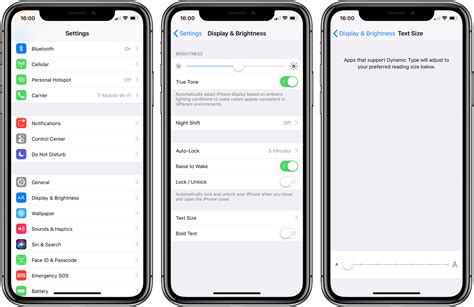
Make Your IPhone Text Stand Out With Bold Fonts
Make Your iPhone Text Stand Out with Bold Fonts
Hey everyone! Ever looked at your iPhone and thought, “Man, this text could be a little bolder?” You’re not alone, guys! Sometimes, the standard fonts just don’t have that pop we’re looking for, especially when you want to emphasize something or just give your device a unique look. Well, guess what? You can change the font on your iPhone, and it’s not as complicated as you might think. Today, we’re diving deep into the world of iOS bold font TTF and how you can harness the power of typography to make your iPhone text truly shine. We’ll explore why you might want to do this, the different ways to achieve it, and what TTF files actually are. So, grab your favorite beverage, get comfy, and let’s get this font party started!
Why Go Bold with Your iPhone Fonts?
So, why bother with changing your iPhone’s font, especially to a bold one? Good question! For starters, bold fonts on iOS can seriously boost readability. Think about it: if you’re squinting at smaller text or reading in bright sunlight, a bolder typeface can make a world of difference. It’s not just about aesthetics; it’s about improving your visual experience . Beyond readability, it’s all about personalization, right? Your iPhone is, like, the most personal device you own. It’s with you all the time. So, why not make it reflect your style? Using a bold font can give your device a more sophisticated, modern, or even a playful vibe, depending on the font you choose. Imagine your contacts list looking sharp and professional, or your notes having a strong, commanding presence. It’s a subtle change that can have a significant impact on how you interact with your device daily. Plus, for content creators or people who share a lot of notes or messages, using a distinct bold font can make your content stand out in a sea of standard text. It’s a way to add a professional touch or a unique flair to your digital communication. Remember those old-school fonts that screamed bold and important ? You can bring some of that vibe to your modern iPhone. It’s like giving your digital world a custom makeover, one character at a time. So, whether it’s for better legibility, a touch of personal flair, or just to make your iPhone feel more you , opting for a bold font iOS TTF is a fantastic idea.
Understanding TTF Files: The Building Blocks of Fonts
Alright, let’s talk about TTF files – that’s short for TrueType Font. You might have seen this file extension before when downloading fonts for your computer, but what exactly are they, and why are they relevant to your iPhone? Think of TTF files as the blueprints for a font. They contain all the vector data that tells your device how to draw each character, number, and symbol. This means that no matter how large or small you make the text, it will remain crisp and clear, without any pixelation or blurriness. Pretty neat, huh? This scalability is a huge advantage over older bitmap fonts, which were essentially just images of characters. TrueType Fonts (TTF) were developed by Apple back in the day and have become a universal standard for digital typography. They are widely compatible across different operating systems, including iOS, macOS, Windows, and Android. This widespread adoption means that when you find a cool font online, chances are it’s available in TTF format, making it easier to use on all your devices. For your iPhone, TTF files are the key to unlocking custom fonts. While iOS has its built-in fonts, TTF files allow you to install and use virtually any font you can get your hands on, provided it’s compatible. The iOS bold font TTF concept essentially refers to using these TTF files to implement bold variations of fonts within the iOS environment. It’s like having a massive library of text styles at your fingertips, waiting to be unleashed. Understanding TTF is the first step to unlocking a whole new level of font customization for your iPhone, moving beyond the default options and into a world of personalized digital expression. So, next time you see a .ttf file, you’ll know it’s a versatile little package containing the DNA of your favorite fonts, ready to be deployed on your beloved iPhone!
4. Install the Font Profile: The app will then prompt you to install a configuration profile. Go to your iPhone’s Settings app > General > VPN & Device Management . You should see the profile from your font app listed there. Tap on it and then tap Install . You might need to enter your iPhone passcode.
5. Use Your New Font: Once installed, the font isn’t applied globally to your entire iOS system. Instead, you’ll use it within specific apps that support custom font input. Apps like Pages, Keynote, Numbers, and many third-party note-taking or design apps allow you to select custom fonts from their text editing menus. So, when you’re typing in one of these supported apps, your new bold font iOS TTF will be available in the font selection list!
Remember, installing custom fonts on iOS doesn’t change the system font everywhere, but it gives you the power to use them in a wide range of creative and productivity applications. It’s all about choosing the right tool for the job!
Where to Find Awesome Bold Font TTF Files
So, you’re ready to get your hands on some killer iOS bold font TTF files, but where do you look? Don’t worry, I’ve got you covered! The internet is a treasure trove of typography, but it’s important to know where to find quality fonts and, crucially, to be mindful of licensing. You don’t want to get into trouble using a font commercially if it’s only intended for personal use, right?
The Future of Fonts on iOS
As we wrap this up, guys, it’s pretty clear that customizing your iPhone’s typography, especially with bold fonts , is more accessible than ever. The evolution of iOS has brought more flexibility, moving from a closed system to one that allows for deeper personalization. The use of TTF files via font management apps has opened up a universe of typographic possibilities that were once confined to desktop publishing. Looking ahead, we can expect even more seamless integration of custom fonts within iOS. Apple is continually refining its operating system, and features like system-wide font management or enhanced support for font formats are always possibilities. Imagine being able to apply your favorite bold font not just to specific apps, but to your entire interface – now that would be something! Furthermore, as augmented reality and new display technologies evolve, the importance of high-quality, scalable fonts like TTF will only increase. Clear, impactful typography is key to delivering information effectively in any medium. So, whether you’re a designer, a writer, or just someone who appreciates a well-crafted bold font , the future on iOS looks bright and, dare I say, bolder . Keep experimenting, keep personalizing, and enjoy the power of great typography at your fingertips!